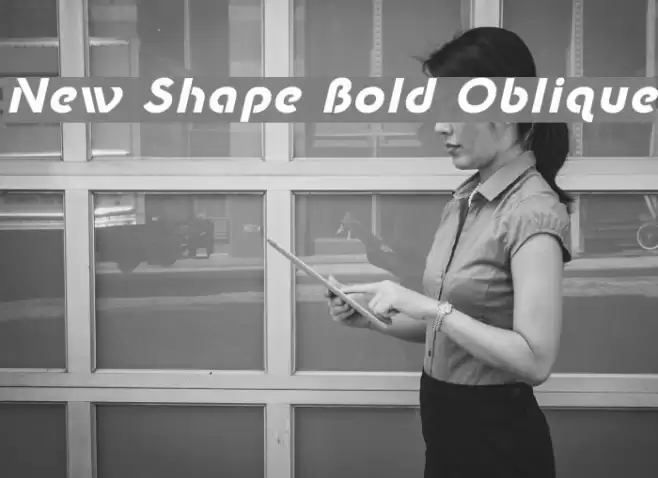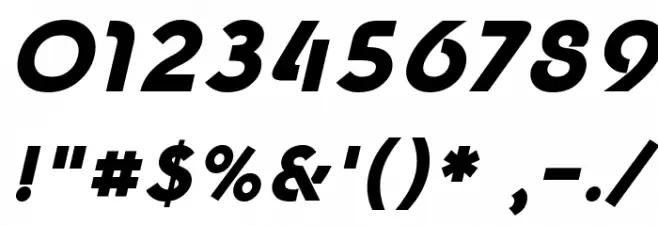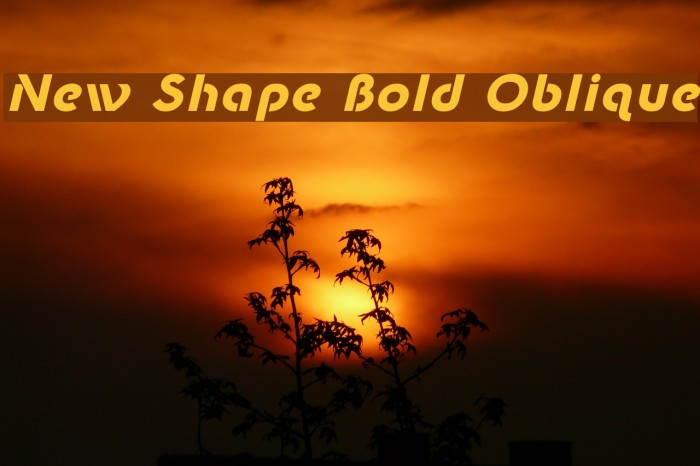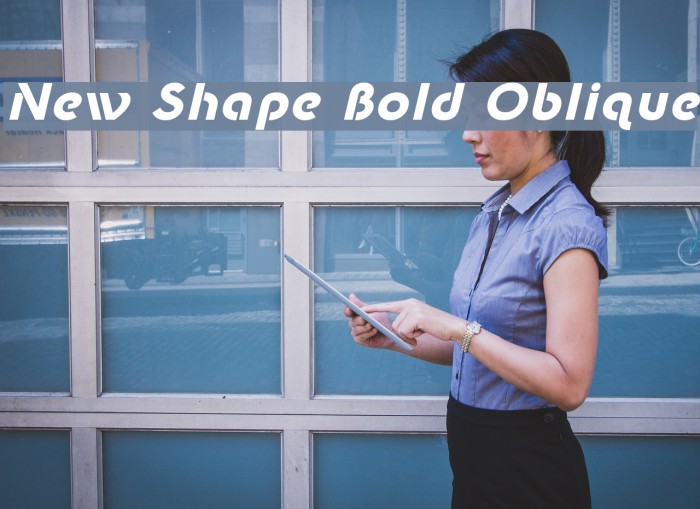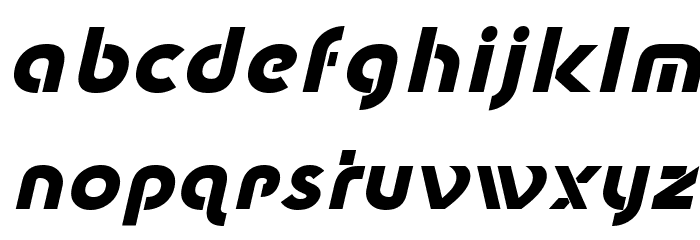
New Shape Bold Oblique
This font features a bold and dynamic oblique style, characterized by its strong geometric shapes and sharp angles. The letters are slightly slanted, giving a sense of movement and energy. The uppercase and lowercase characters maintain a consistent weight, providing a uniform appearance across the text. The numerals are distinct and easy to read, complementing the overall boldness of the font. Special characters are designed with the same attention to detail, ensuring they integrate seamlessly with the alphabetic characters. This font is ideal for projects that require a modern and assertive look.
A bold, oblique font with geometric shapes and sharp angles.
- Proposed Projects: Ideal for branding, advertising, and editorial design projects that require a modern and dynamic appearance.
- Use Case: Headlines, Logos, Branding